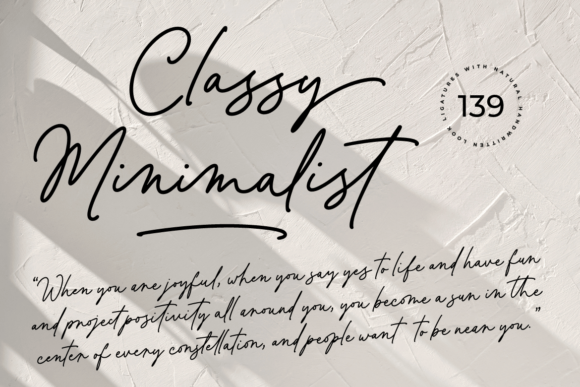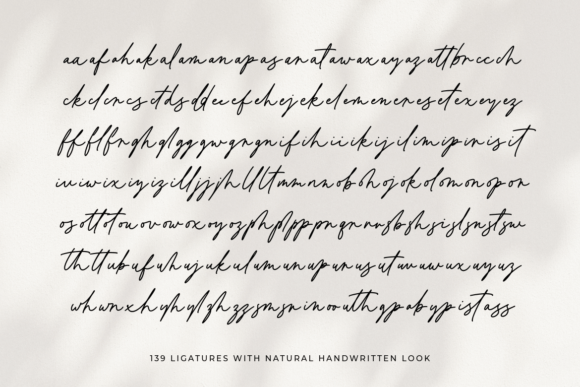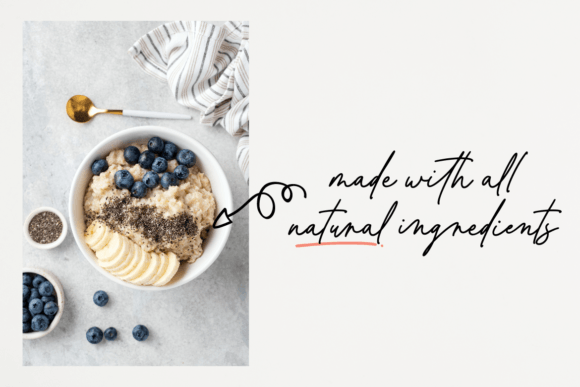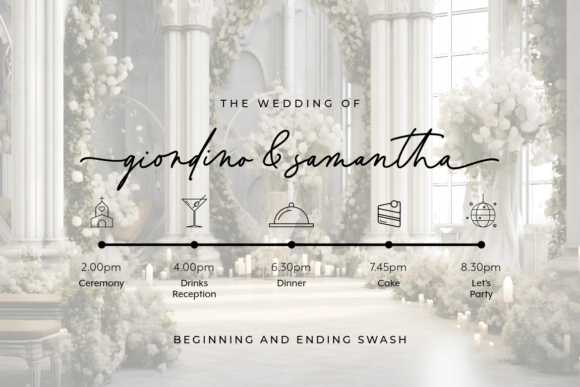
Classy Minimalist Font
About the Classy Minimalist Font
Unleash your creativity with Classy Minimalist Font, a versatile font perfect for a wide range of applications. “Classy Minimalist” is a stunning handwritten typeface that features 139 ligatures for a natural and sophisticated handwritten look. Its beauty is perfect for weddings, Valentines, invitations, branding, quotes, and more. Plus, it supports multiple languages, making it perfect for a variety of design needs. With its elegant strokes and versatility, this font adds beauty to any project, making it a must-have for content creators.
Classy Minimalist Font Usage Examples
Classy Minimalist Font Example